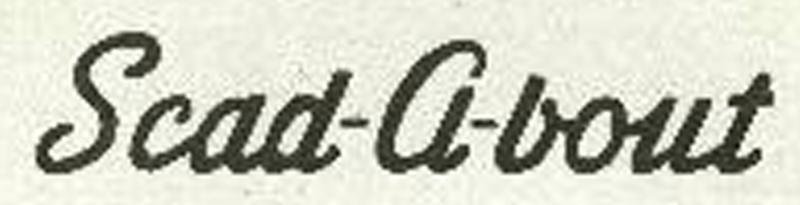
Help to ID this font
I am trying to restore an old 1964 Scad-A-bout trailer. This is a copy of the text from the logo. What is this script?
No match in my database and doesn't look at all familiar. Considering that it dates back to the 1960's, it may be a font that never made the transition to digital ... or it may be hand drawn. If you're just looking for the logo, it looks pretty easy to trace or you could just send it off to the Vector Doctor and he'll get it back to you ready to cut and usually overnight.